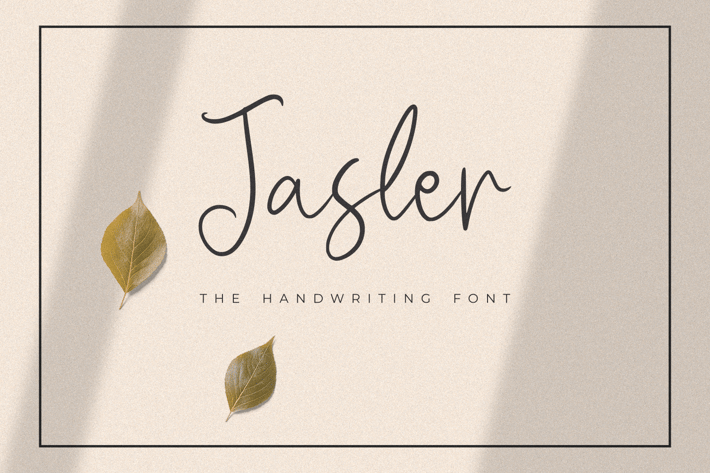
Jasler - The Handwriting Font
Jasler - The Handwriting Font, every single letter has been carefully crafted to make your text looks beautiful. it's perfect for logos, name cards, magazine layouts, invitations, headers, or even large-scale artwork.
- Jasler font including upper & lowercase characters, numerals and more of symbols.